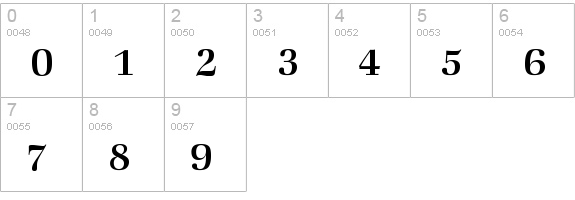
ZapfBookEF-Medium is a balanced, medium-weight variant in the ZapfBookEF typeface family \xE2\x80\x94 well suited to sub-headlines, navigation, and balanced editorial work.
ZapfBookEF-Medium font exudes sophistication and elegance with its timeless design and impeccable readability. This versatile typeface strikes the perfect balance between modernity and tradition, making it ideal for a wide range of design projects. The medium weight of this font adds a touch of authority and professionalism to any text, while its classic letterforms ensure effortless legibility across various media. What sets ZapfBookEF-Medium font apart is not just its striking aesthetics, but also its accessibility. This premium font is available for free download at FontsMarket.com, allowing designers, creatives, and enthusiasts to elevate their projects without breaking the bank. Embrace the beauty and functionality of ZapfBookEF-Medium font in your next design endeavor and make a lasting impression with every word.